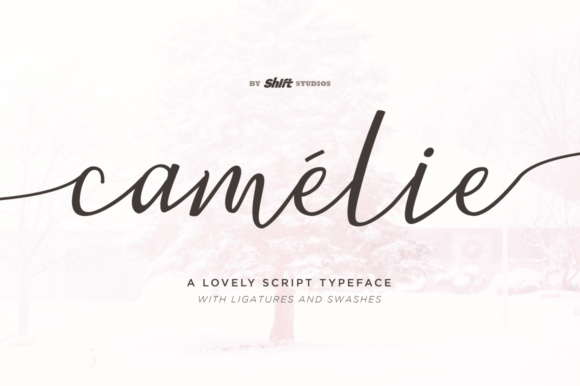
In a world of digital expression, where words ignite emotions and messages shape realities, Camelie Font emerges as a radiant star, illuminating your creative endeavors with its captivating script. Born from the artistic visionaries at ShiftStudios, Camelie is a font that dances across the screen, evoking a sense of joy, elegance, and whimsy.
Crafted with the utmost care and attention to detail, Camelie is a visual masterpiece that breathes life into your designs. Its bouncy, feminine curves invite you on a journey of creativity, inspiring you to express yourself in ways you never thought possible. As a handwritten font, Camelie possesses an intimate charm that makes your words feel personal and heartfelt.
Picture your social media posts adorned with Camelie's graceful strokes, capturing the attention of your audience with its undeniable charm. Envision your website headers, logos, and product packaging transformed into works of art, leaving a lasting impression that sets you apart from the crowd.
With Camelie as your font of choice, your designs will transcend the ordinary and embrace the extraordinary. Its versatility knows no bounds, making it the perfect companion for any creative project that demands a touch of sophistication and elegance.
Make Camelie your font of choice and let your creativity soar. Its enchanting script will captivate your audience, leaving them spellbound and eager for more. Embrace the magic of Camelie and unlock a world of limitless possibilities.